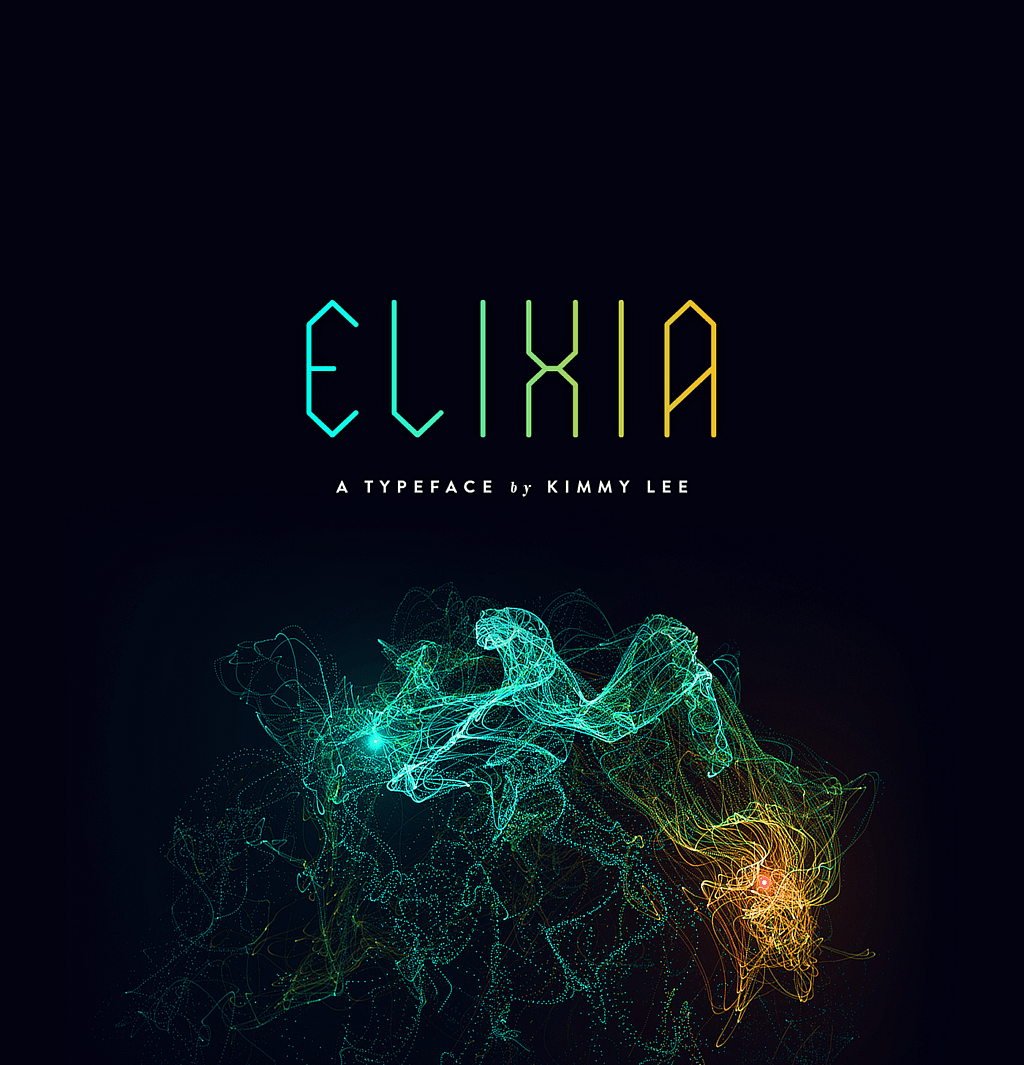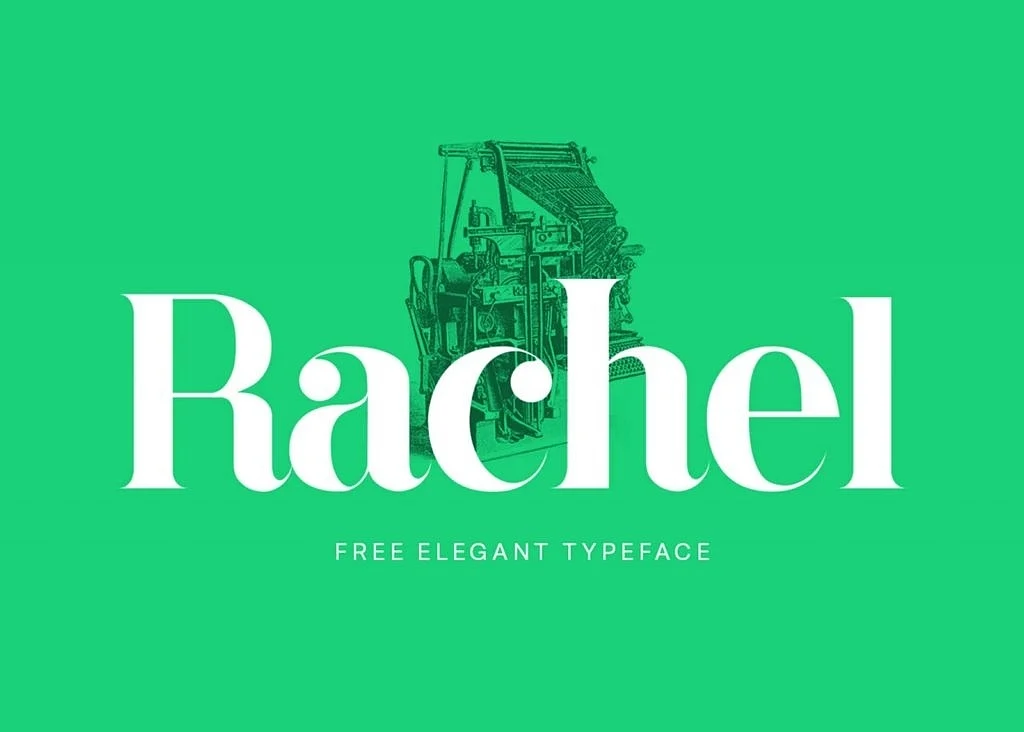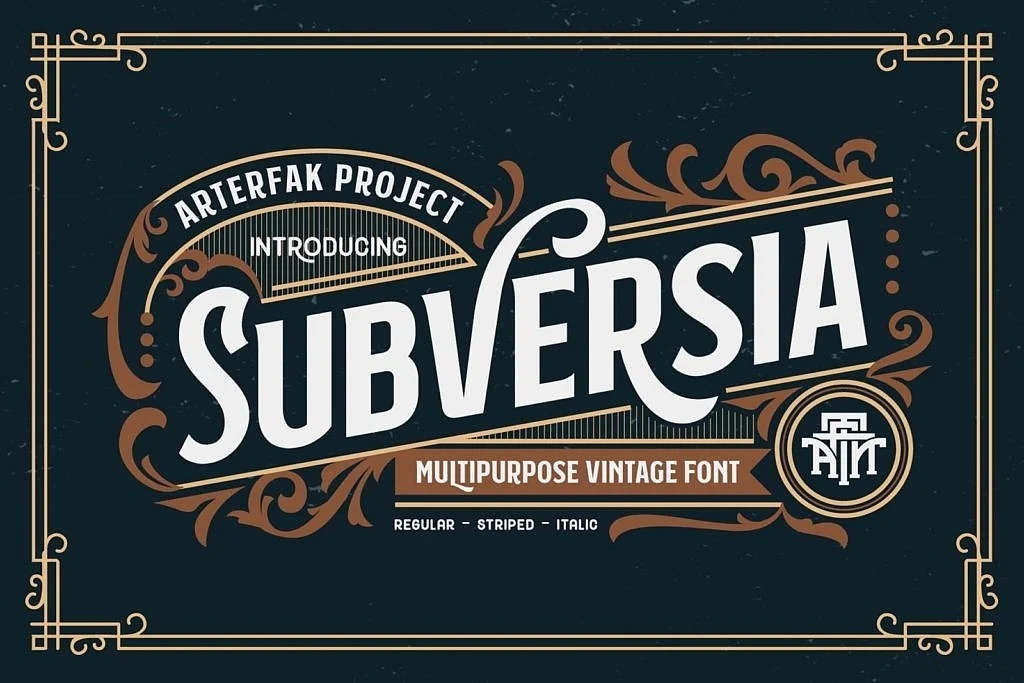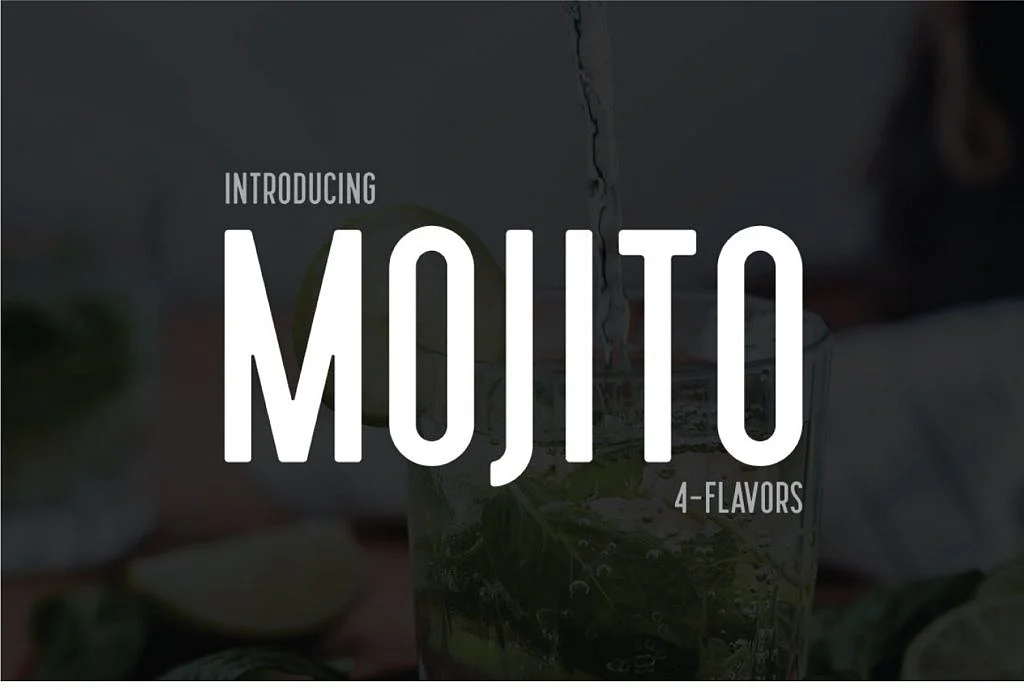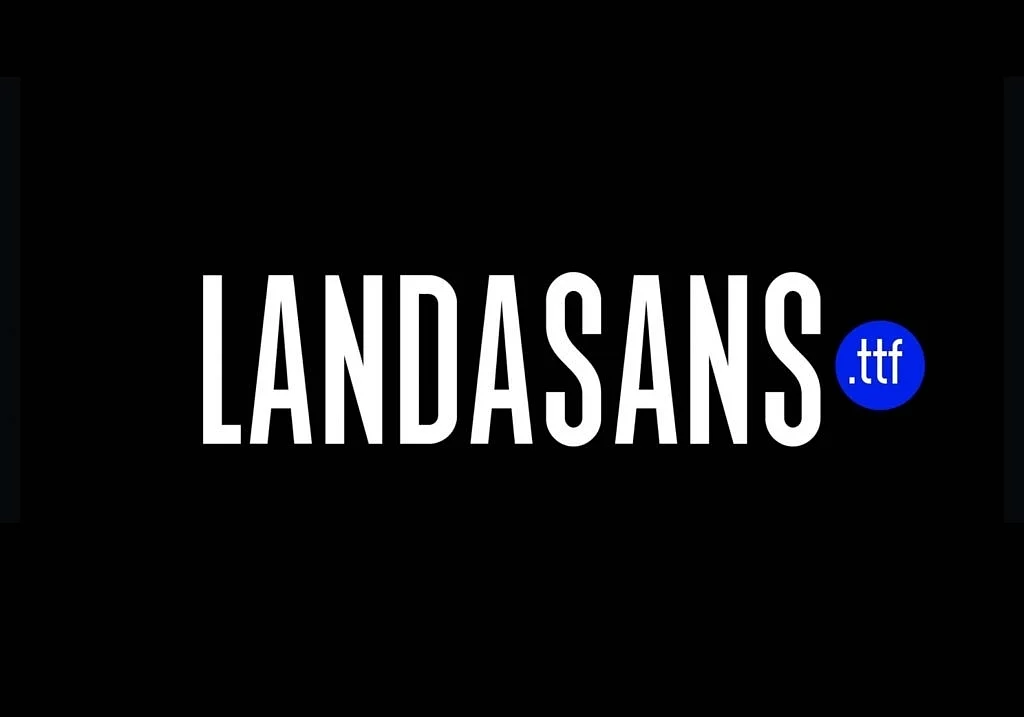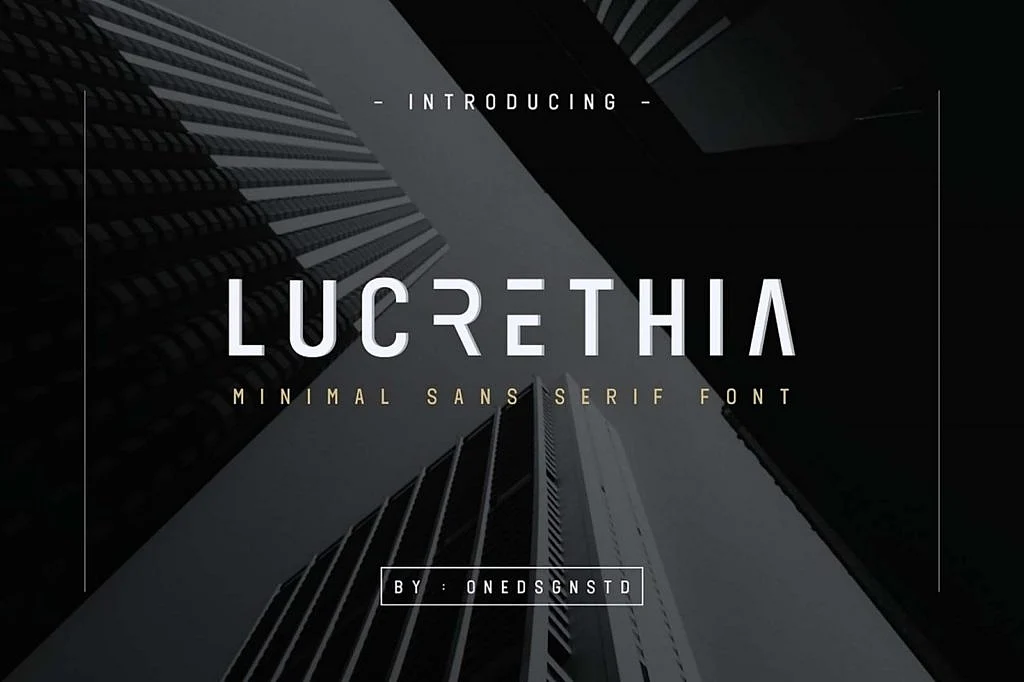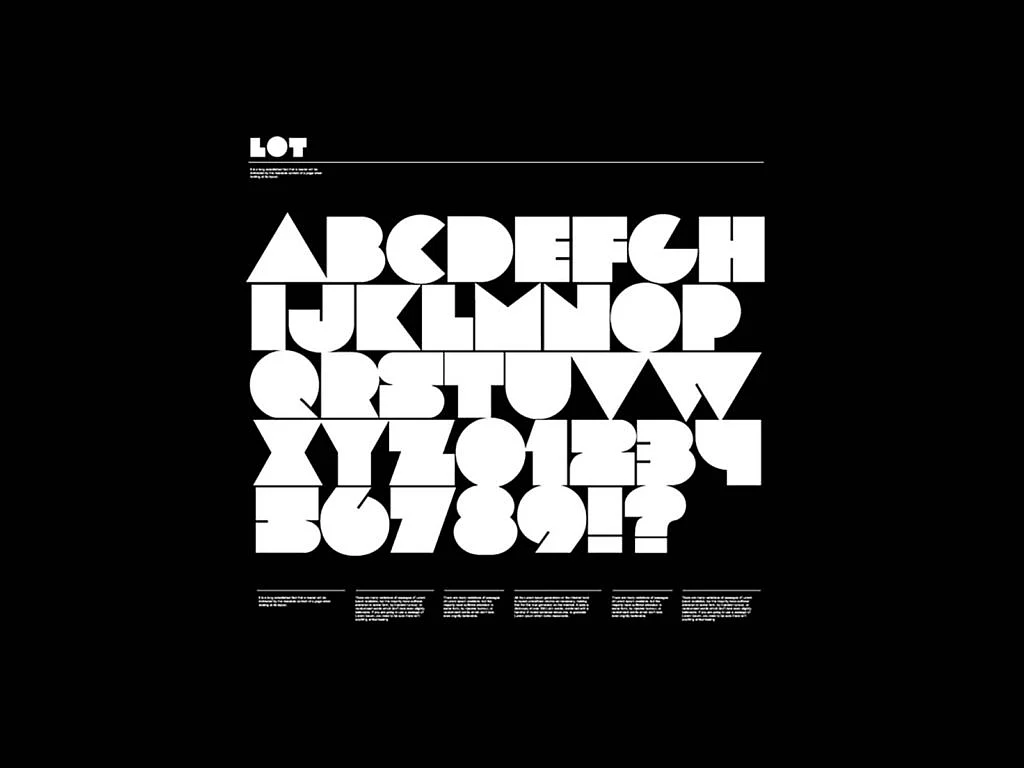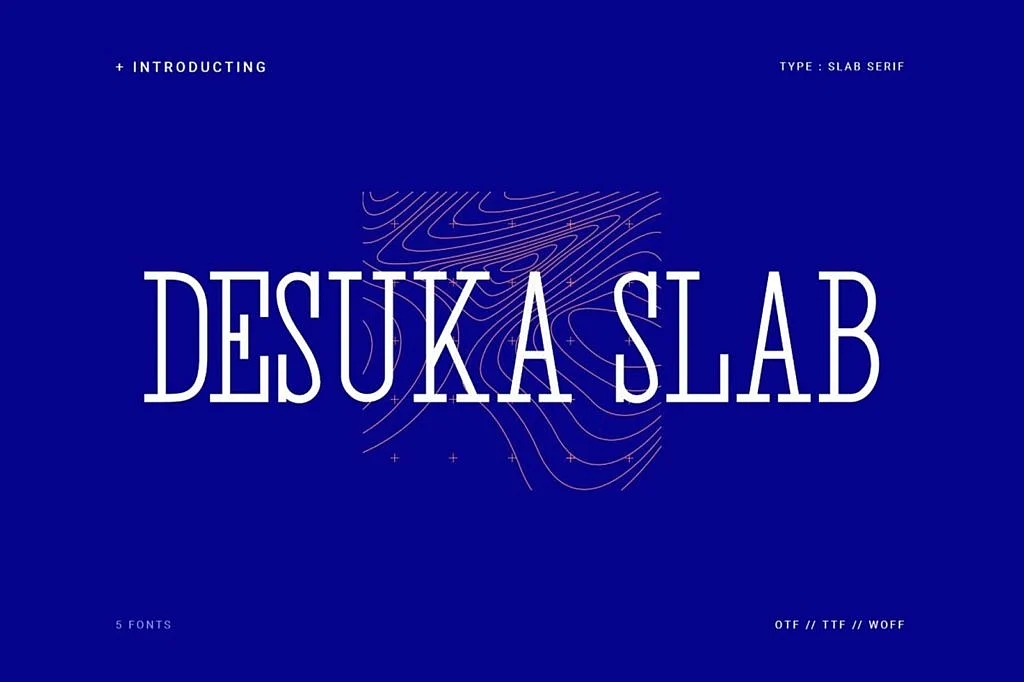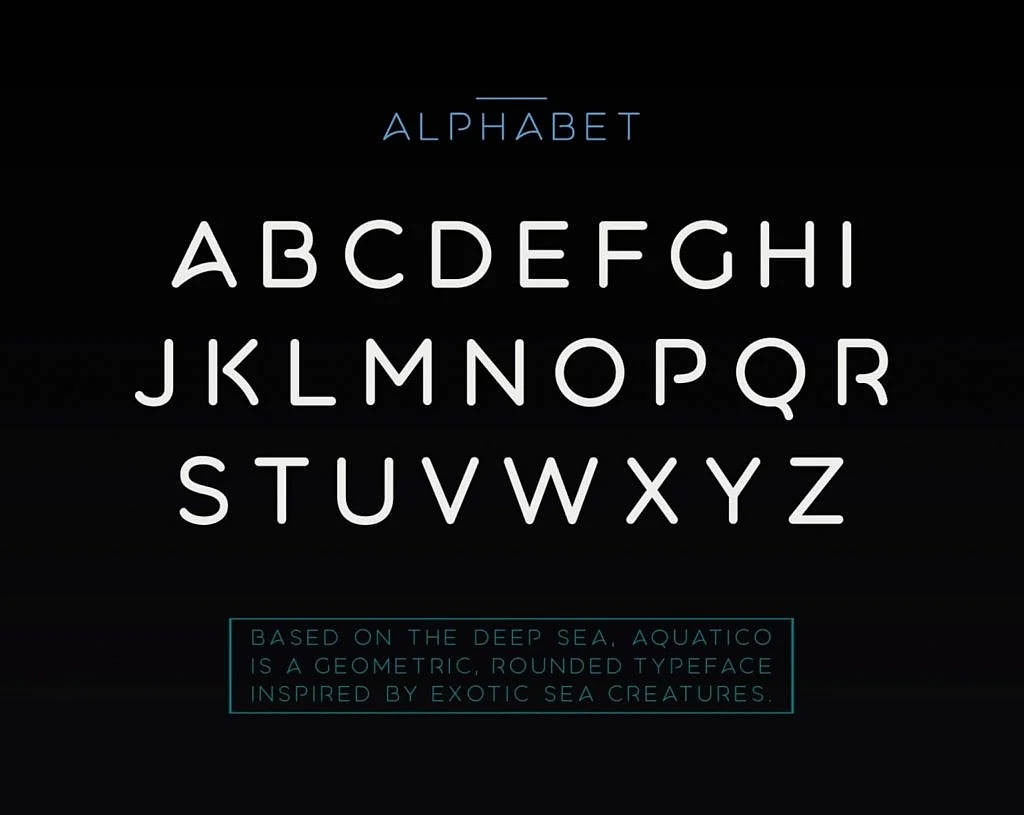
Using the right fonts are important as every presentation demands certain elements to give the impression it hopes to spread.
Fonts are great and it's highly doubted that one has not sat down at a computer and spent time playing with font choices just to see what looked best. There are numerous font choices, that it can sometimes be hard to choose the right and the perfect one. So the question is, is font choice really all that important? Well, it absolutely is!
The way you present your words can have a profound effect on how your readers perceive it and that's not all. There are plenty of other excellent reasons why picking up a font can be a vital and choosy task. Especially if you are looking for some amazing free fonts.
If you want your designs and fonts to go along with the messaging and brand, you need to have it set right and that should be engaging and compelling. You could even specify the type of font you want for a particular piece of design or you could craft a design based on your messaging font style.
The whole purpose of putting the right font is to transmit an idea to the audience who will be reading them. The fonts you choose can have a major effect on the people reading the words you type and the perceived meaning can change drastically depending on the font style you have adapted. Although finding amazing fonts doesn't come cheap we are here to help you! Check out these incredible free fonts to go with all your requirements whether it's for your personal use or commercial.
Coldiac is a modern font family that reflects professionalism with every word, it has numbers, symbols, punctuation's, ligatures, and multilingual characters including small capitals for Latin and Cyrillic alphabets. This font will bring elegance to all your projects.
A fabulous serif font provided in OTF format that will mesmerize your viewers and if what you're striving for is elegance, you've stumbled upon the right tool with a set of uppercase and lowercase letters as well as a wide collection of ligatures that offer over 50 characters.
Quick, a sans serif font is a beautiful font with an elegant design that comfortably rests its characters on the surface of your projects. It offers you multiple styles including regular, italic, light, and bold so you could pick your favorite one or choose a mix to add to your logos as well as texts.
Just like this font name indicates, Quantum introduces a rush of energy with its set of characters, a collection of discontinuous letters and numbers that can be easily identifiable.
It has a futuristic design with bold features evident in all the uppercase letters that can be used for branding designs for TV series and movies set in the future or even for sci-fi books and graphic novels.
This is LOT and it may seem like a lot to handle, but it takes a true designer to see its potential and the grand opportunities in which it can come to use. With a remarkable set of uppercase letters and numbers, all of which instantly jump off the screen with bold designs this font has Curves and sharp edges mingle to create special characters and its contemporary typeface introduces a captivating style, making it useful with special effects.
This free typeface includes uppercase and lowercase letters, numerals, and punctuations to have a strong presence. The more engaging the background is, the better it will be. Twists and turns surround every letter especially with the additional swashes leaving no character out of the fun.
Shared by Inspiratype.
Tamira font looks elegant and stunning at the same time combining different widths of lines to create noticeable designs that grab the viewer's attention from the first glance.
It includes 4 weights that you can use at any time including light, regular, bold, and black, all of which carry a different effect on your projects in addition to the wonderful designs carried by the letters, numbers, and punctuation.
Created by VP Creative Shop
The Sánchez Niu font is a redesign of Sánchez, a never seen before Latinotype family. It's astounding that it supports 219 different languages. With one single click, you will have at your hands a set of 720 characters with original designs and Open Type features: small caps, old-style figures, tabular figures, fractions, etc. The stylistic alternates come in multiple weights including light, bold, black, and regular which makes it suitable for any creative project.
Designed by Daniel Hernández Sánchez
When it comes to your artistic needs, an essential tool to have is this Neon Tubes font which brings light to the darkness with solid characters and creative designs and can be used for many different design projects with an artistic innovative twist by adding your glowing effect in Photoshop or HTML/CSS. The set of letters, numbers, symbols, and punctuation comes in two styles, bold and regular.
Lucrethia, a sans serif font despite its minimalistic designs and straight lines, forces a stunning presence regardless of where it is used. You can see the appealing symmetry of the letter designs whether they're used in words, full sentences, or titles. This is why creating logos using different sizes of this typeface combined with simple illustrations would be suitable for several branding projects and many others.